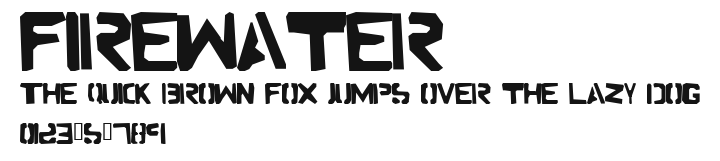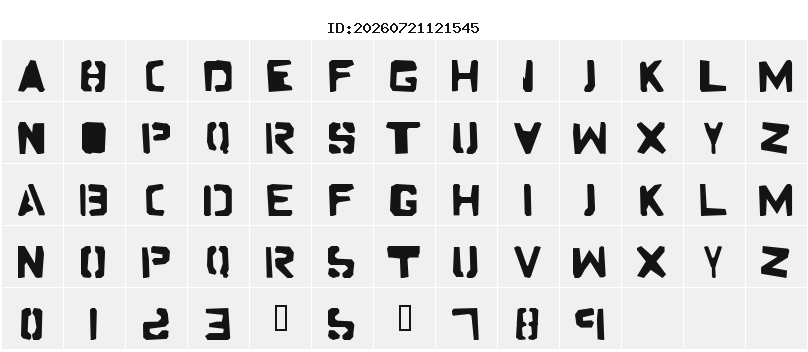
• Font Name: Firewater
About Firewater.ttf
Firewater.ttf is a modern, elegant sans-serif font designed for ultimate readability and visual harmony. Perfect for branding, headlines, web design, and print materials.